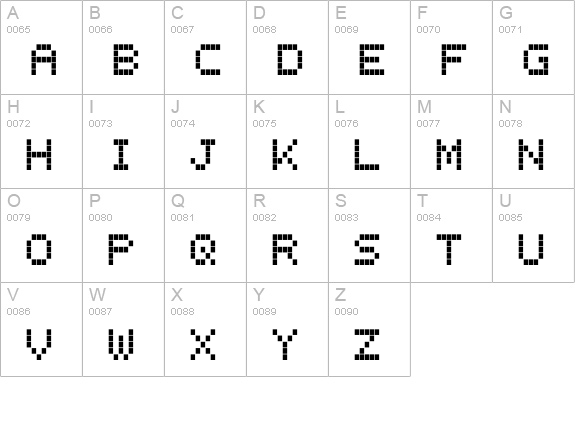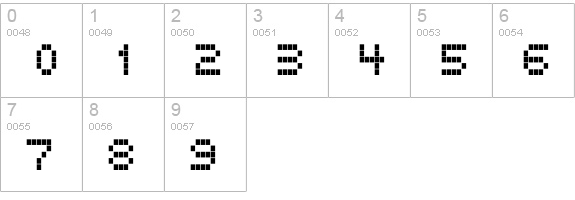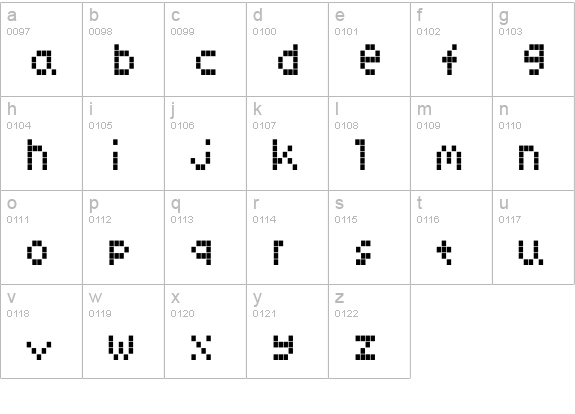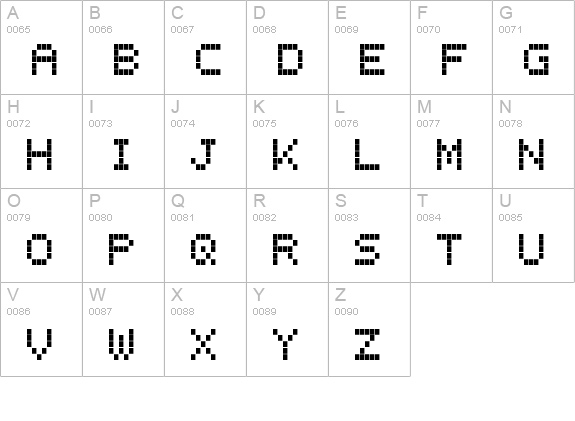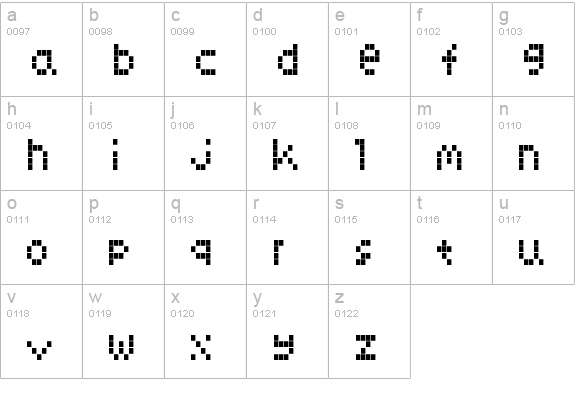
LCD Regular is the standard, neutral variant in the LCD typeface family \xE2\x80\x94 well suited to general body text, paragraphs, and standard typographic work.
LCD Regular font is a sleek and modern typeface that is perfect for adding a touch of sophistication to any design project. With its clean lines and minimalist aesthetic, this font is ideal for both digital and print applications. Whether you're creating a logo, designing a website, or crafting a poster, LCD Regular font will make your text stand out. One of the best things about LCD Regular font is that it is completely free to download. You can easily find and download this font from the FontsMarket.com website. By offering this font for free, the creators have made it accessible to everyone, regardless of their budget or design experience. LCD Regular font is versatile and can be used in a wide range of design projects. Its clean and legible characters make it suitable for both large headings and small body text. The font also includes a variety of punctuation marks and special characters, allowing you to add extra flair to your designs. When using LCD Regular font, you can expect a professional and polished look. Its sleek and modern design will give your designs a contemporary edge, while its legibility ensures that your message is always clear and easy to read. Whether you're designing a website, creating a flyer, or working on a branding project, LCD Regular font is sure to elevate your design to the next level. In conclusion, LCD Regular font is a stylish and versatile typeface that is freely available to download at FontsMarket.com. Its clean lines, modern aesthetic, and legible characters make it a great choice for a wide range of design projects. Don't miss out on this opportunity to enhance your designs with LCD Regular font!